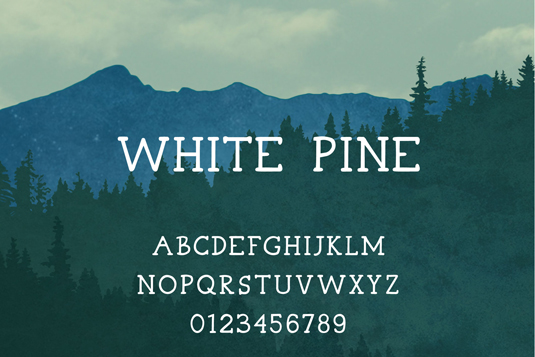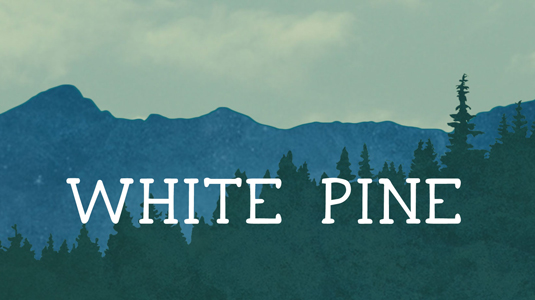
Font of the day: White Pine
White Pine by Anna London
Today's typeface of choice is hand-drawn serif White Pine by graphic designer and illustrator Anna London. "I'm so excited to share the first font that I've created, White Pine!" London comments on her blog.
"I created this while working on a logo for a client. They wanted a serif font with a hand drawn feel. I had trouble finding exactly what I wanted and decided to create it myself. Now you can download it and use it on your projects too! Just 'pay' with a tweet (or a facebook share). I'd love to see what you make with it, so don't forget to share your project!"